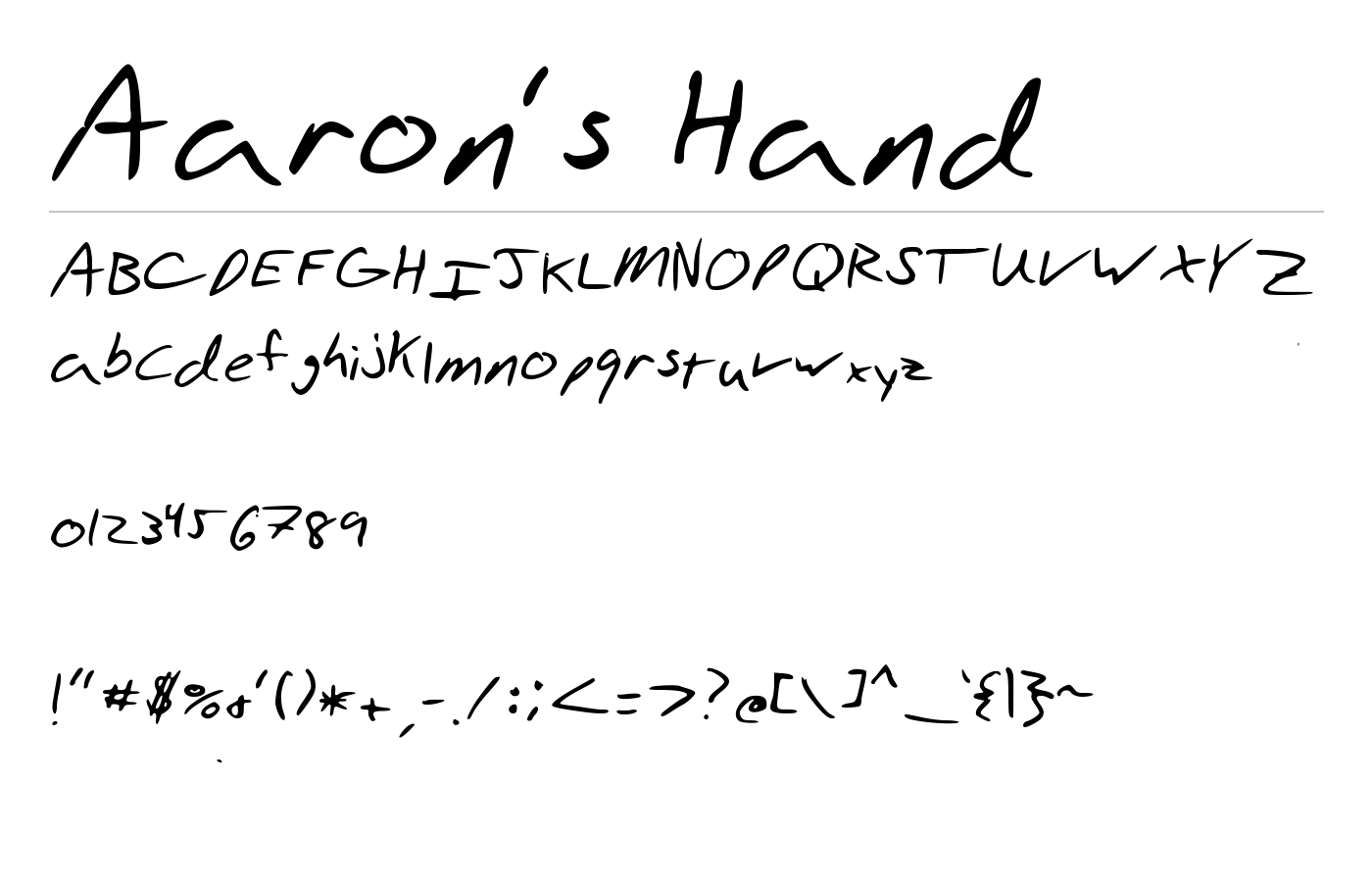
Aaron's Hand is a casual, handwritten sans serif font with an informal and organic feel. Its letters have a light weight and a naturally varied stroke, giving it a personal and approachable style that works wonderfully for creative projects, invitations, and branding that seeks a warm, human touch. This font shines in contexts where friendliness and a relaxed vibe are desired, making it perfect for headlines, social media, and artistic designs.
Aaron's Hand Font
About Aaron's Hand Font